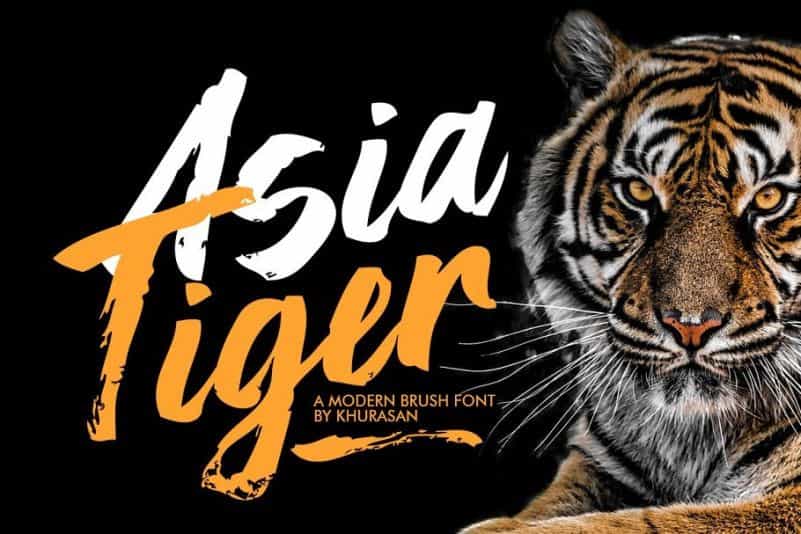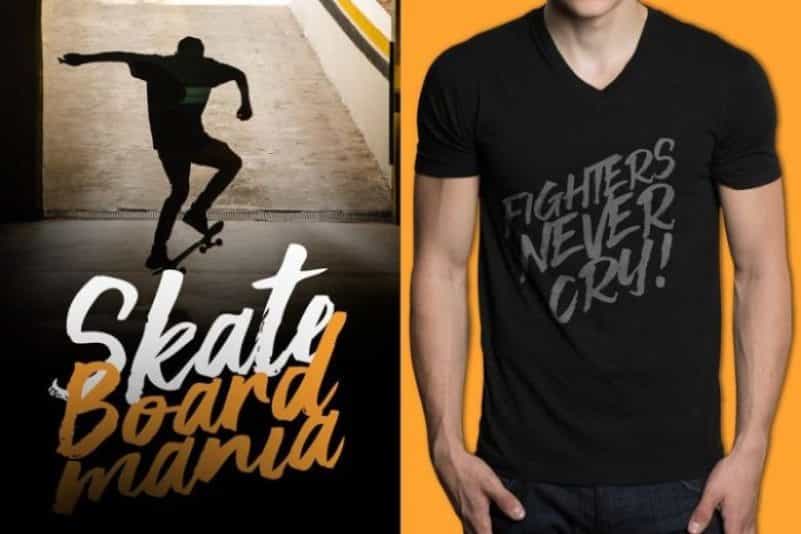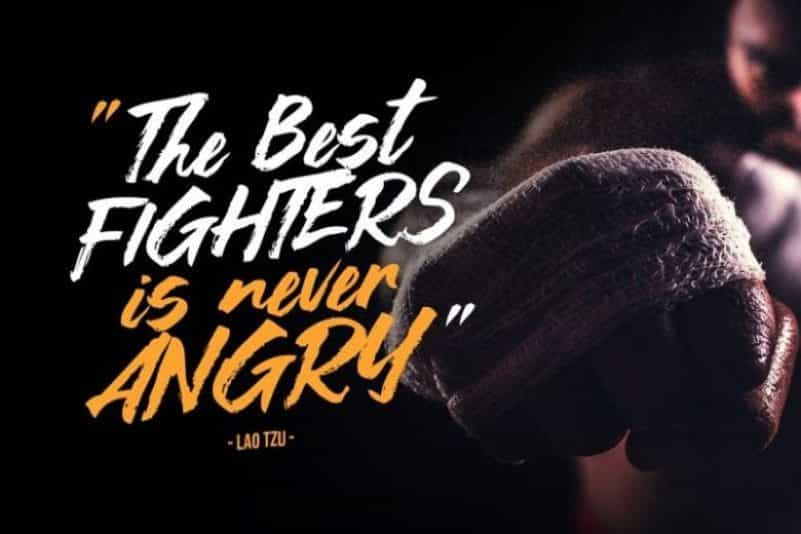
Asia Tiger is a brush font that was specially designed to look bold and have the perfect texture, suitable for today’s designs. It can be used in design titles such as invitations, signboards, book titles, stationery designs, quotes ,branding logos greeting cards packaging posters and many more.